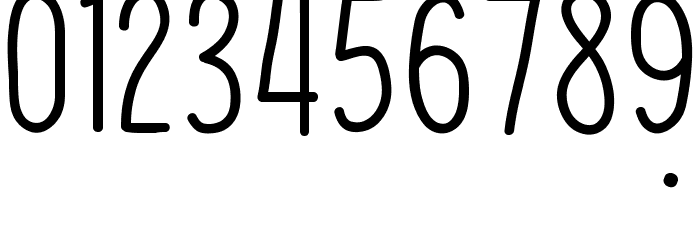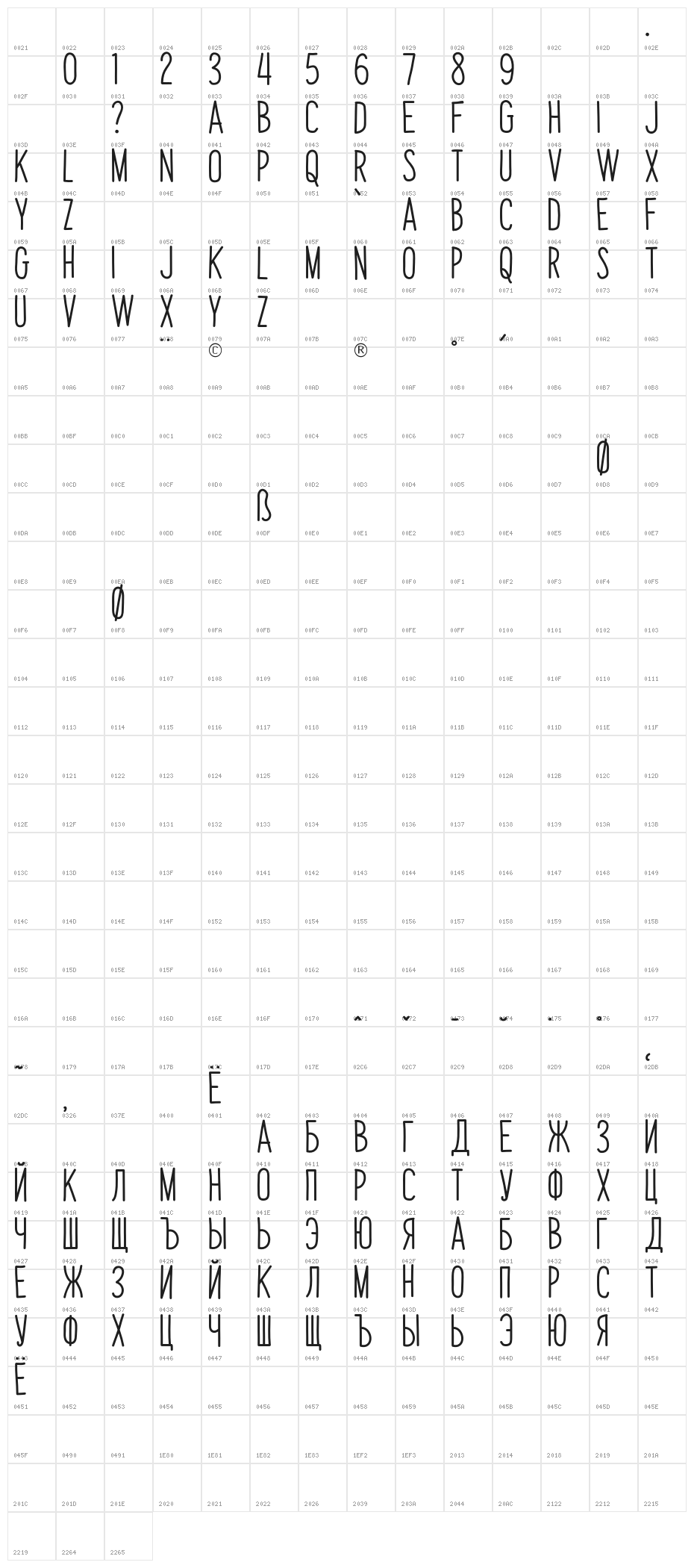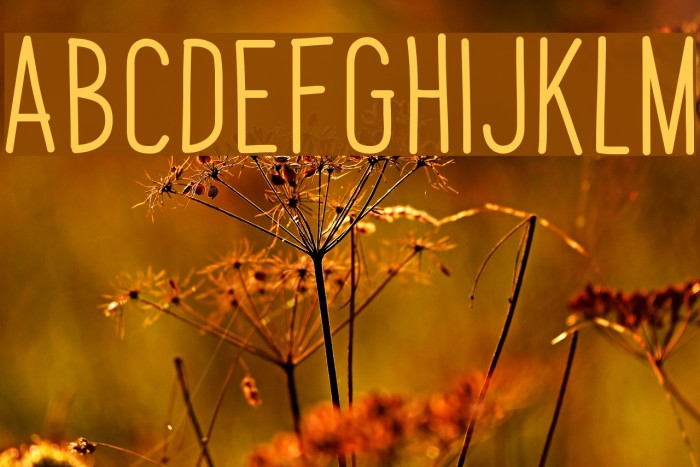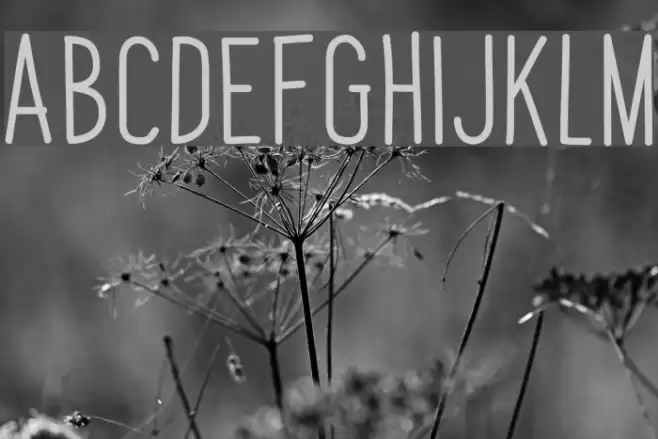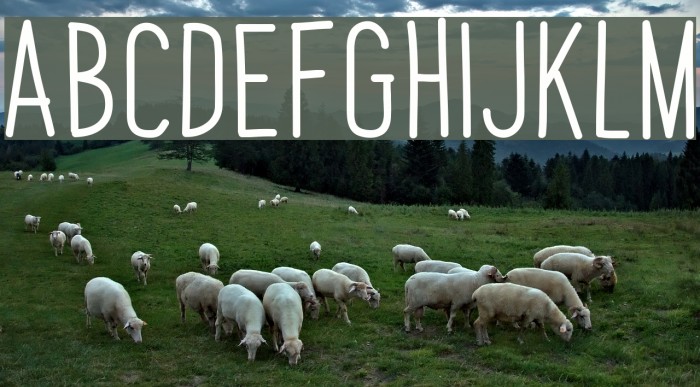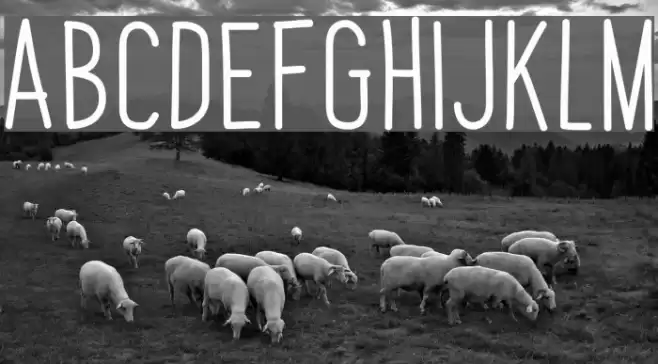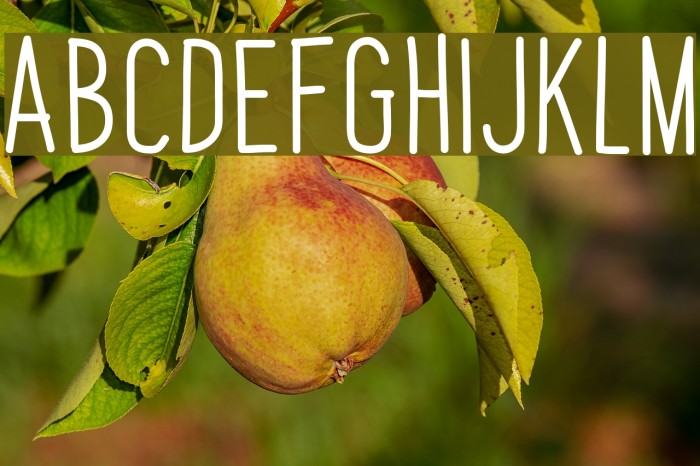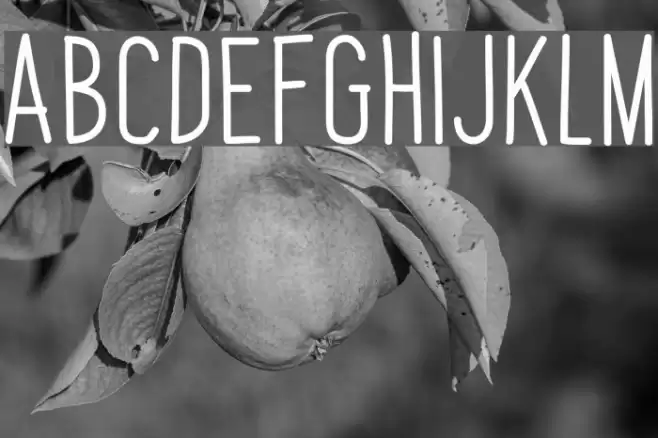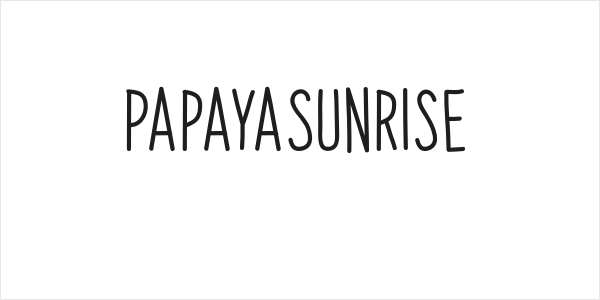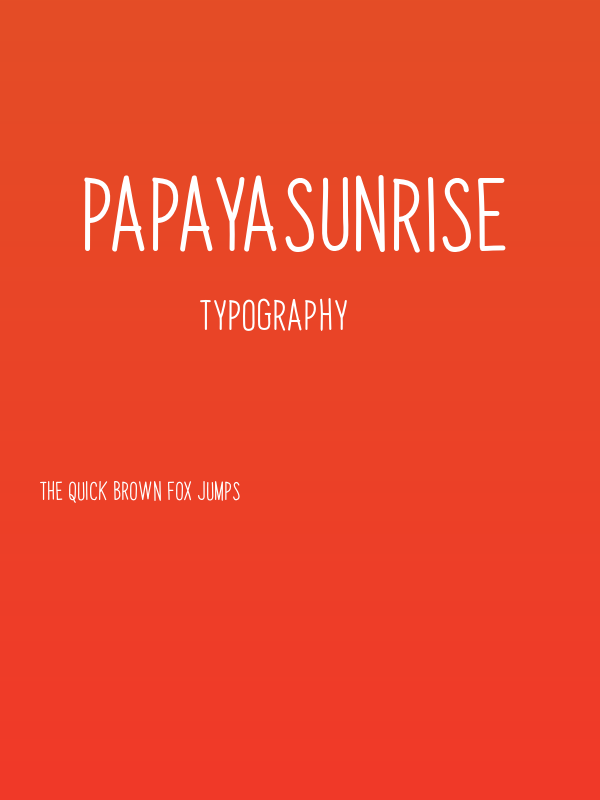
PapayaSunrise Font
PapayaSunrise Description
This font features a playful and casual style with tall, narrow letters that have a hand-drawn appearance. The strokes are consistent in width, giving it a clean and uniform look. The characters are slightly rounded, adding a friendly and approachable feel. The uppercase and lowercase letters maintain a cohesive style, while the numerals are clear and easy to read. This font is versatile, suitable for both digital and print media, and can add a touch of personality to any project.
| Proposed Projects | Ideal for children's books, greeting cards, playful branding, and social media graphics. |